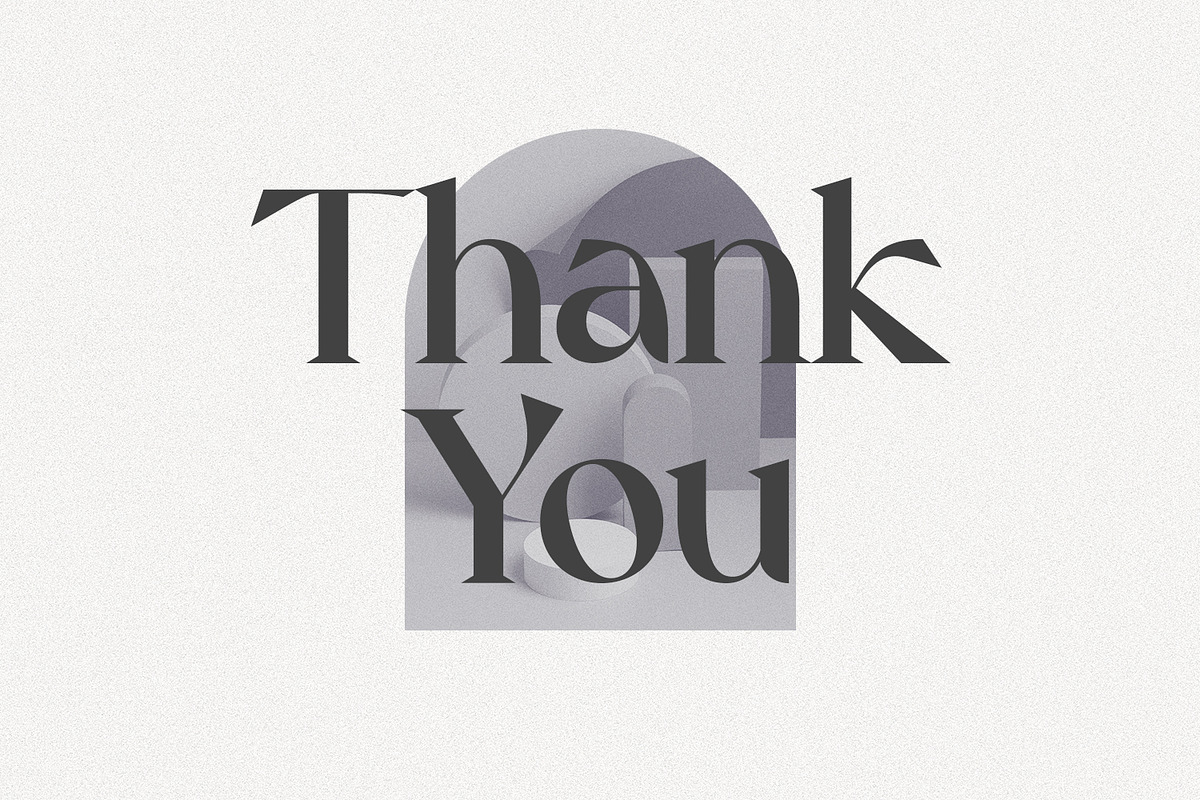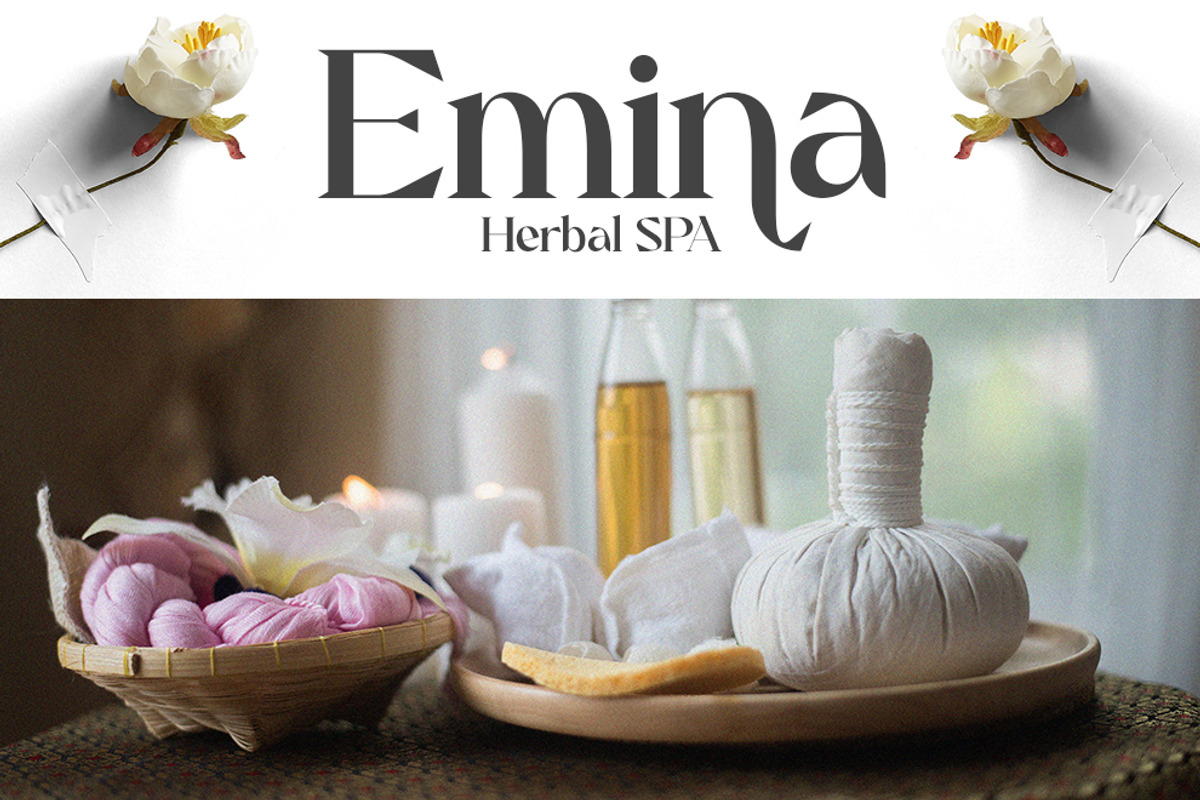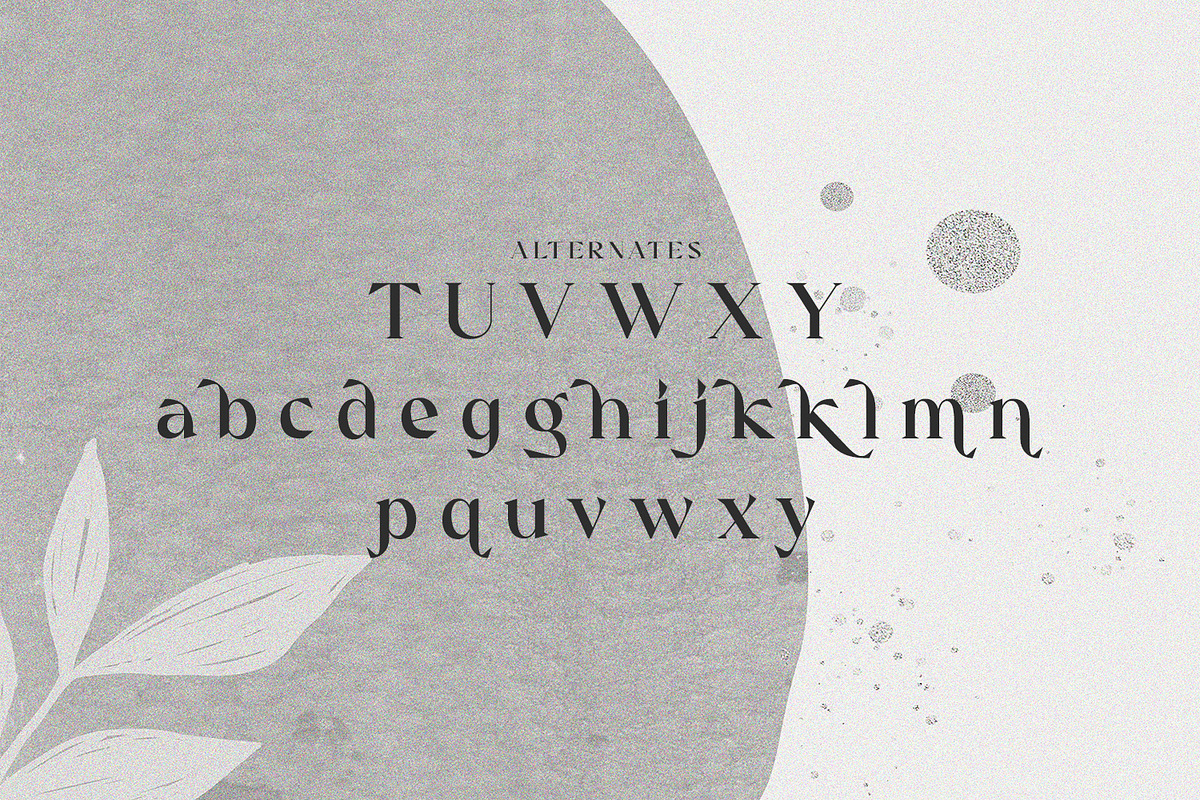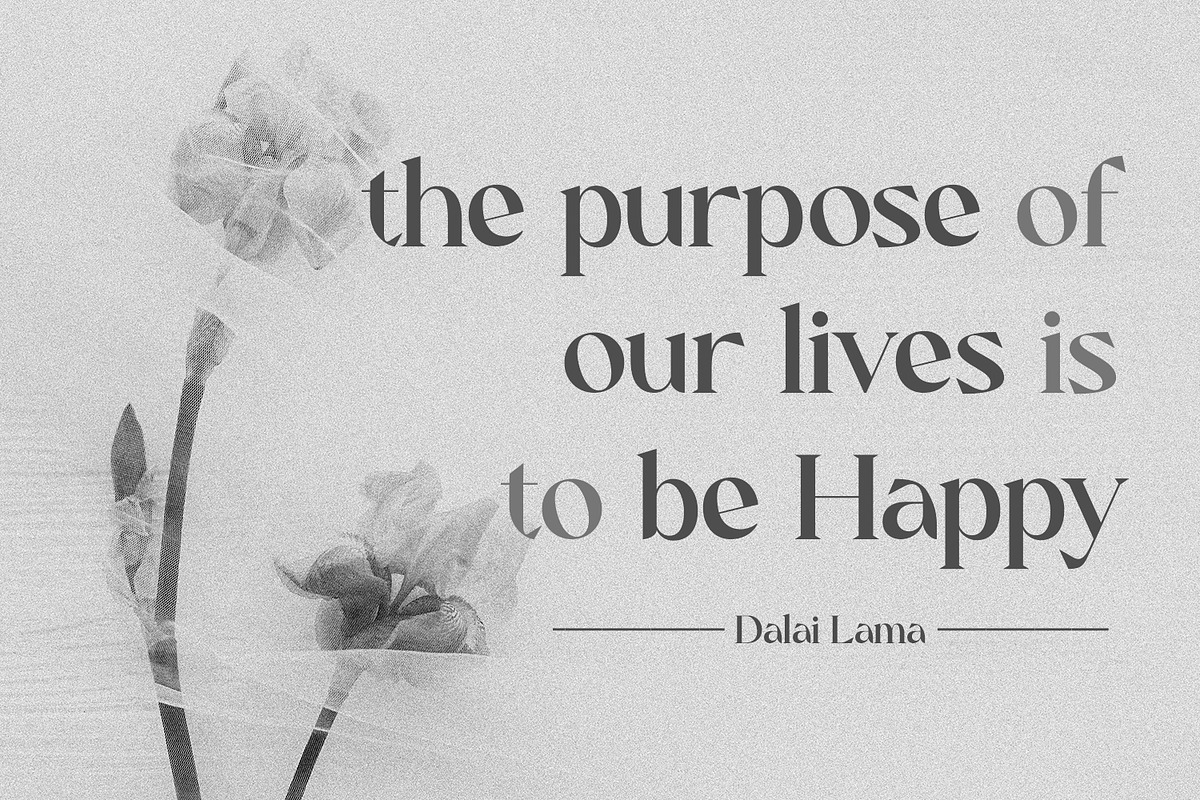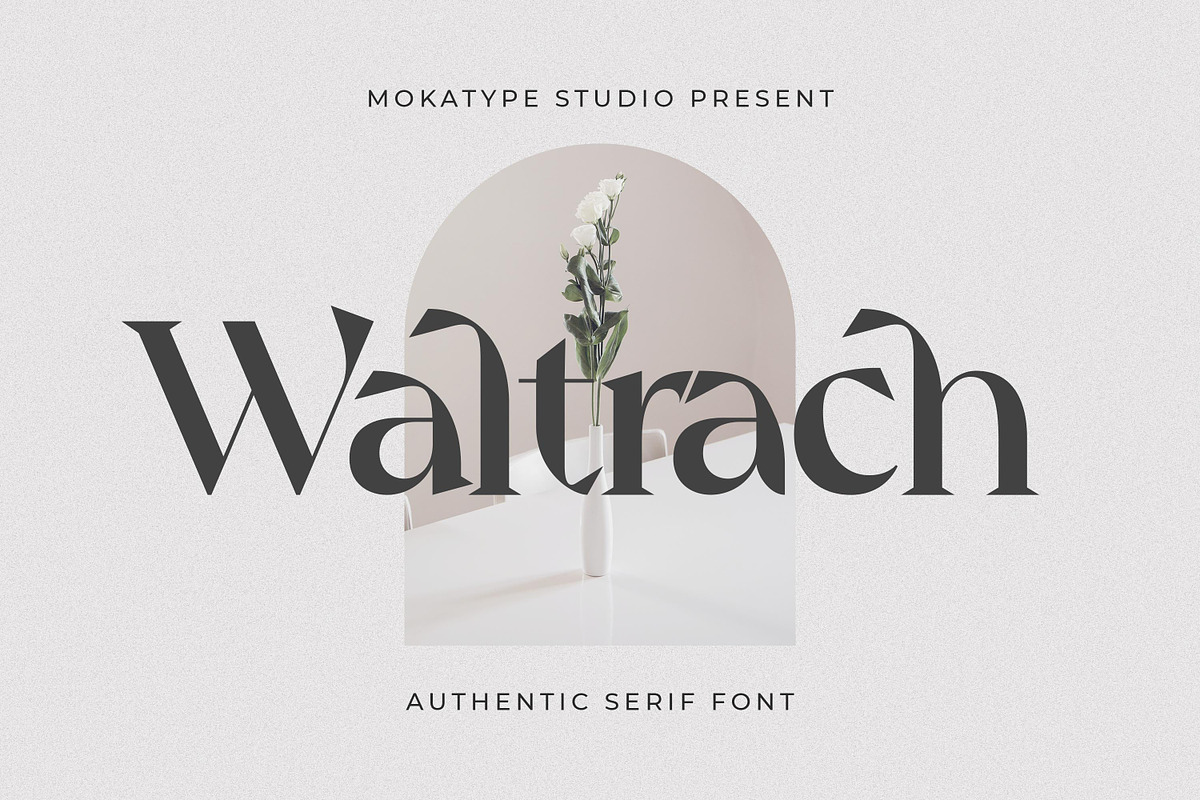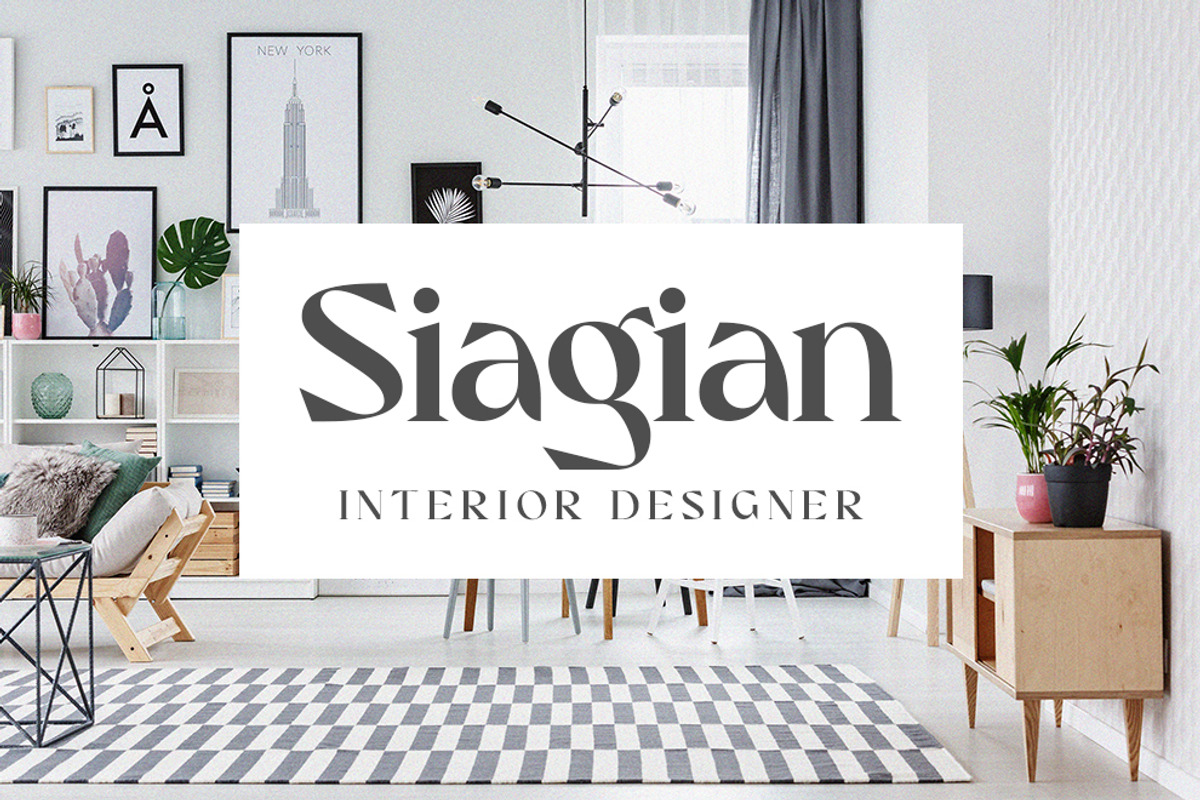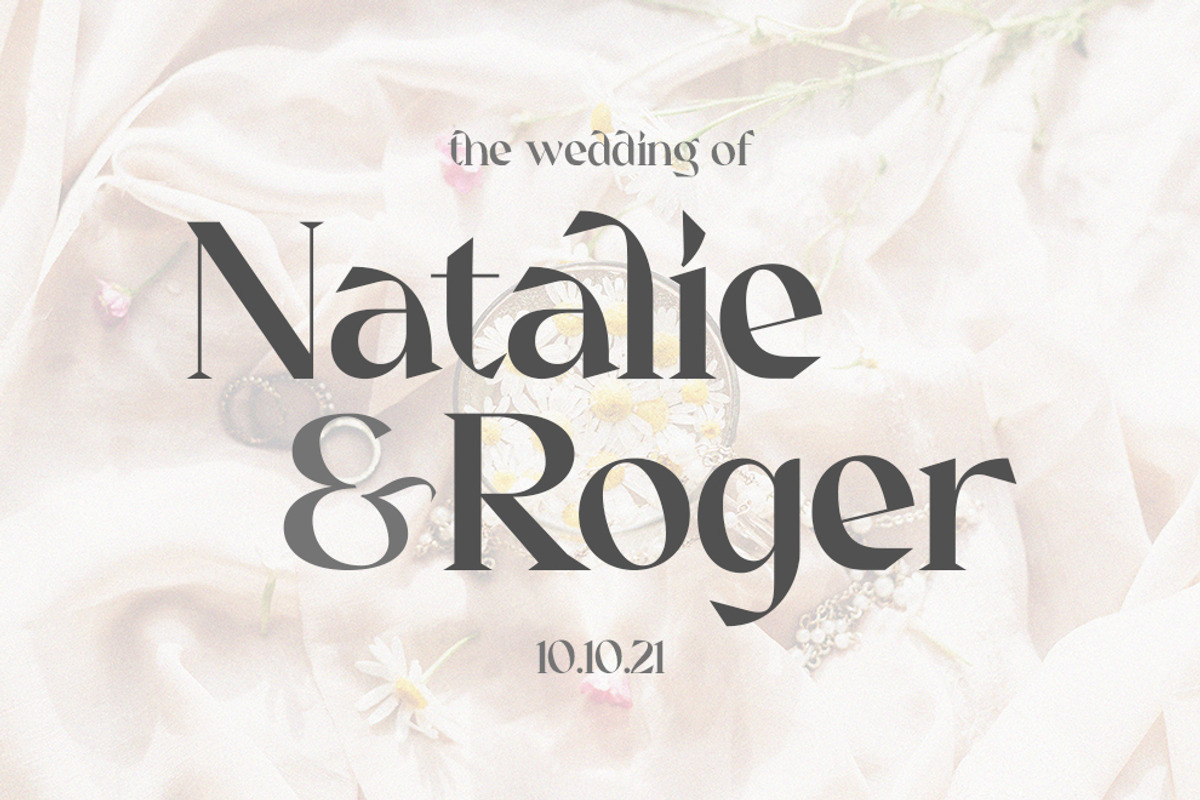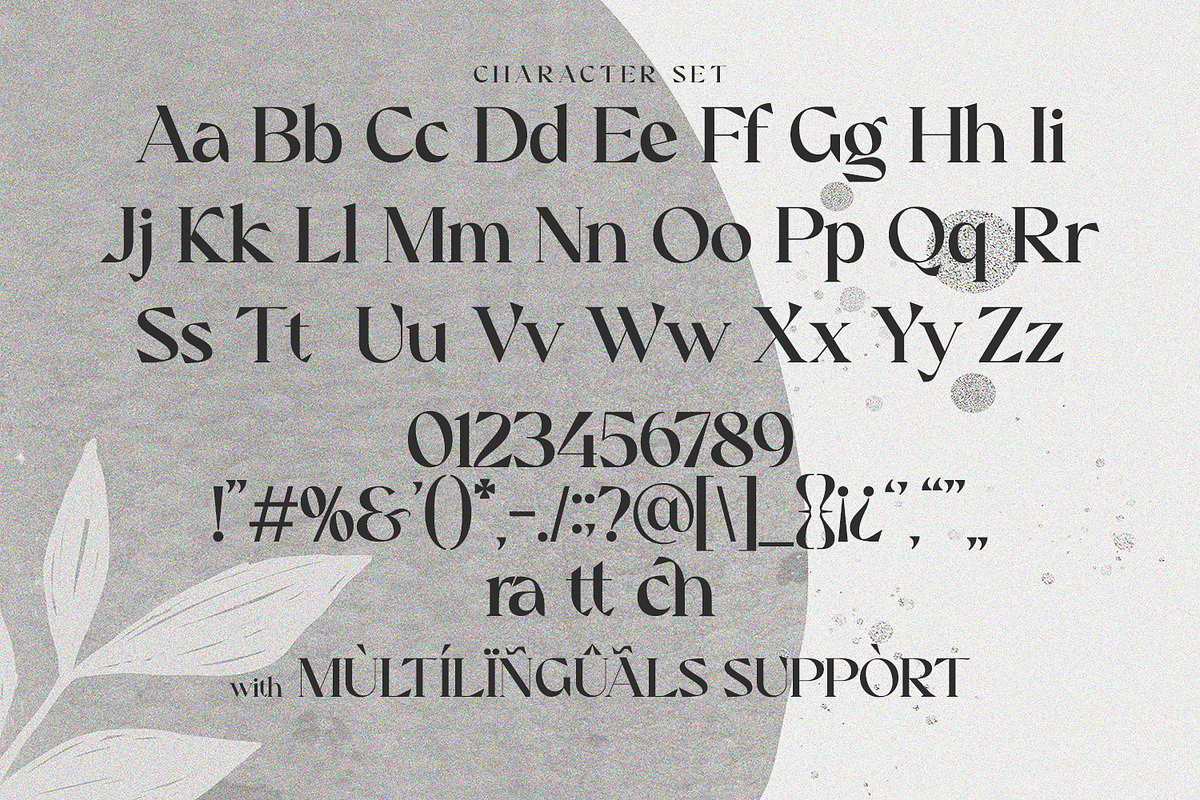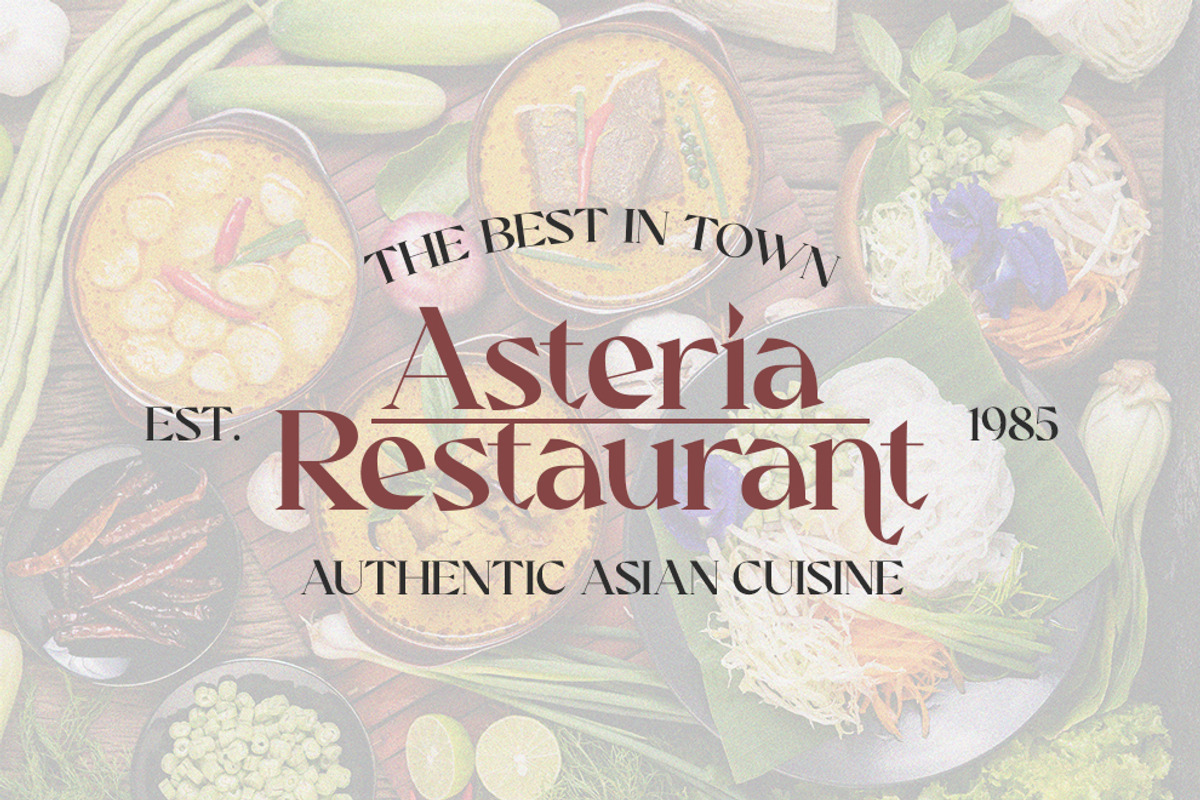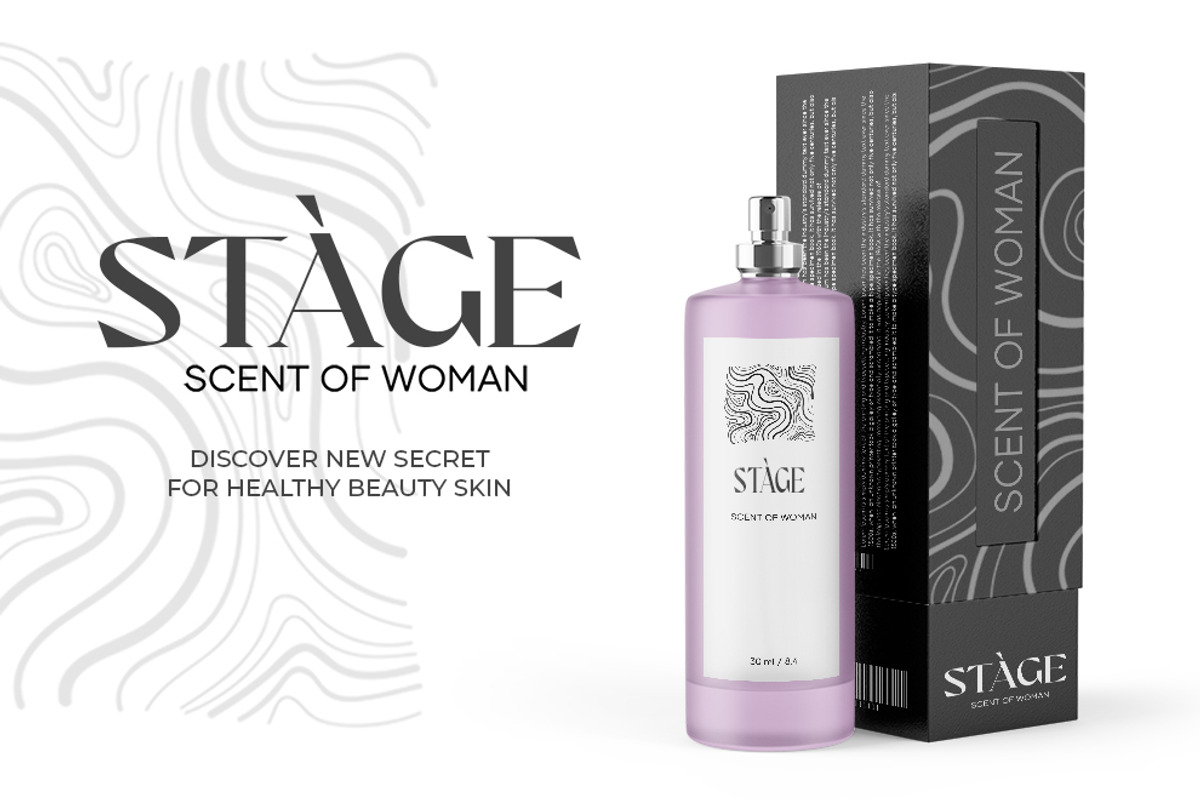
Waltrach - Authentic Serif
Waltrach - Authentic Serif Font is an elegant and unique font that uses ligatures to smoothly link letters. Perfect for adding a unique twist to word-mark logos, monograms or pull quotes. Waltrach has 28 Alternates and 3 ligatures as well making it super fantastic. Ligature can be turned off if required standard writing needs.